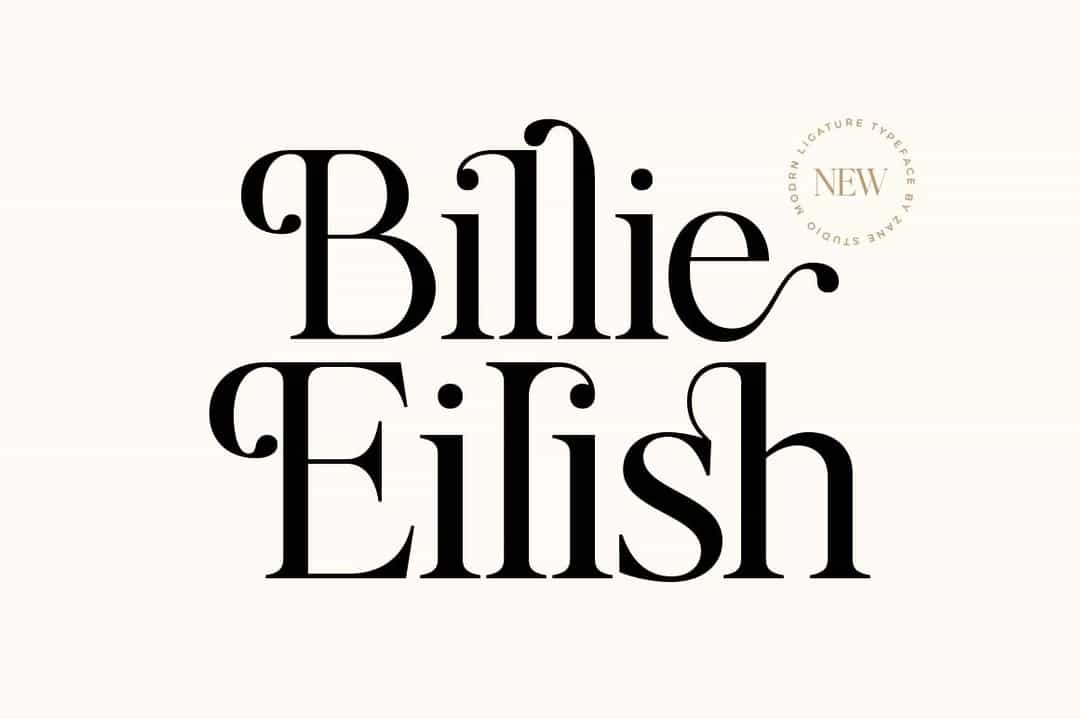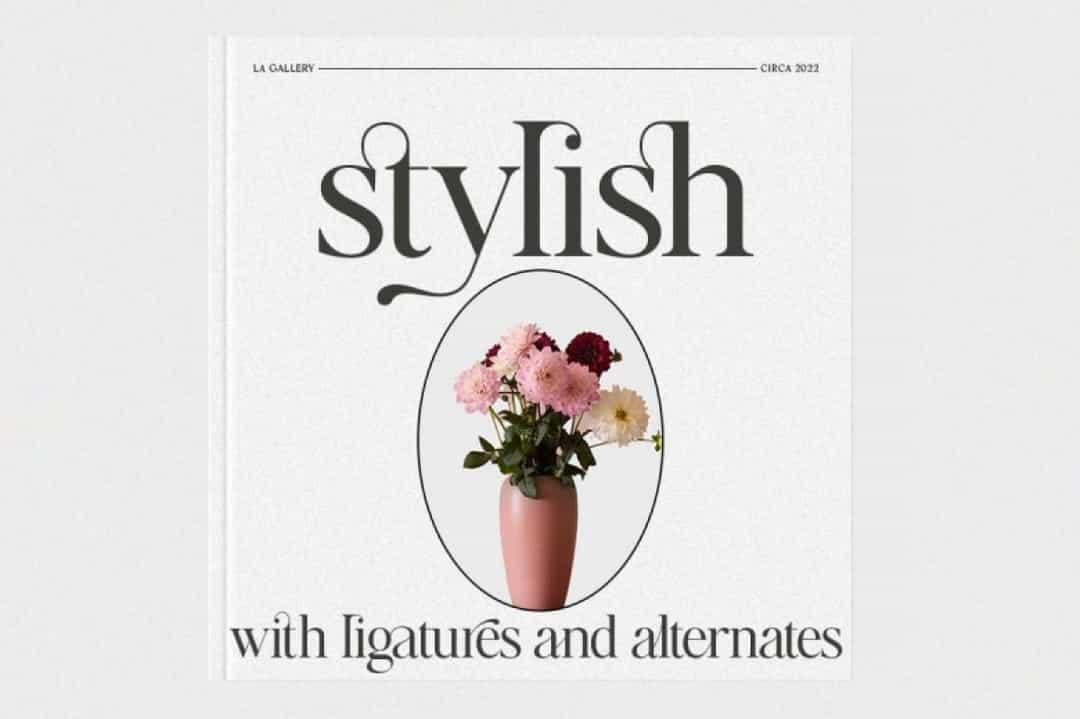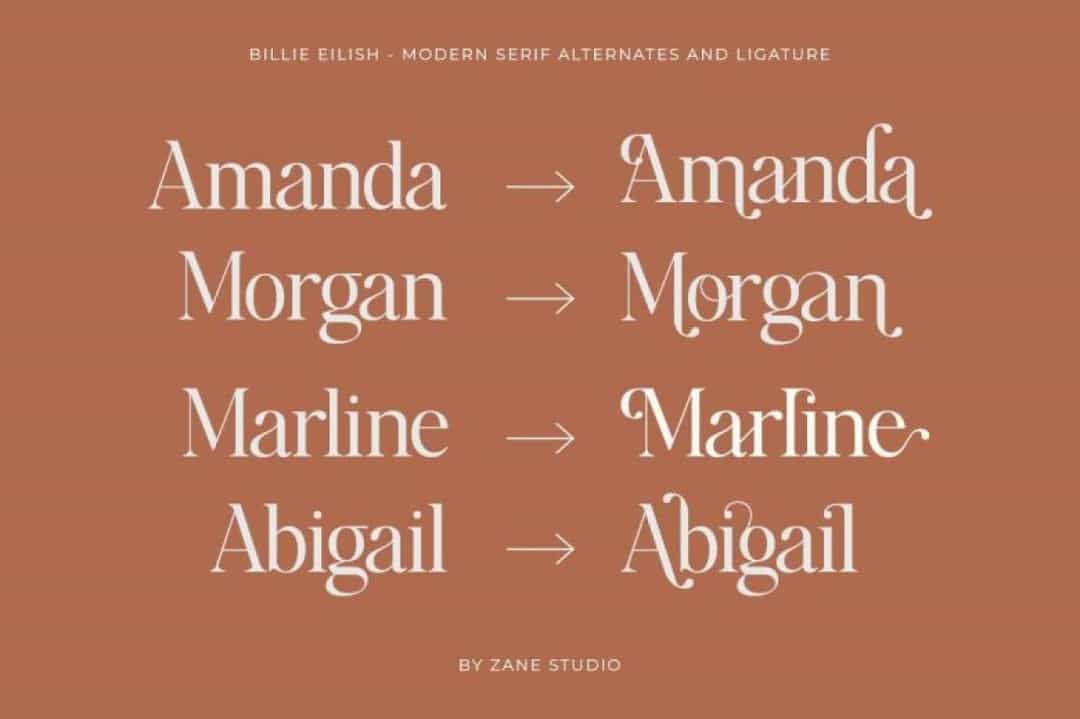
Billie Eilish is a modern elegant serif typeface ideal for branding, headings, logos magazines product packaging and invitations. With sleek lines and smooth curves that add an air of sophistication to the project at hand.